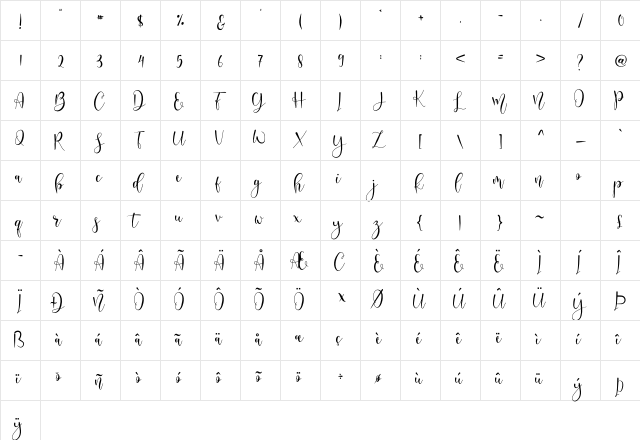
delisha Regular
Design Context for delisha Typeface
delisha is a composed and adaptable typeface that performs quietly and consistently across a wide range of design contexts.